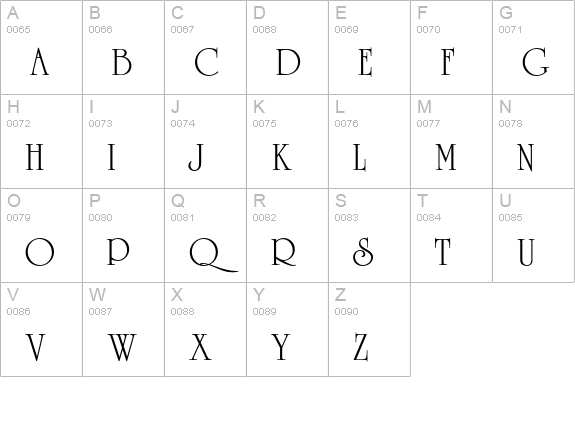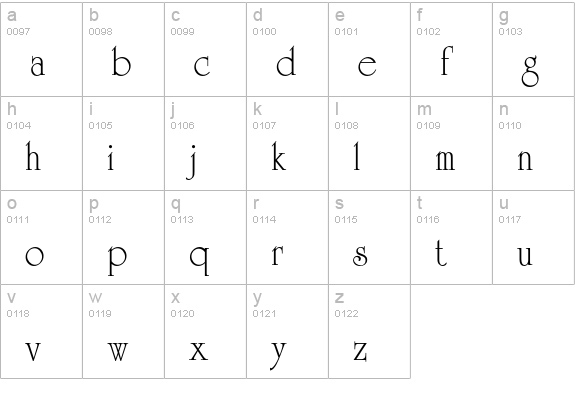
University Roman Font Details
University Roman is a timeless font that exudes elegance and sophistication. With its classic and refined design, this font is perfect for a variety of projects, from formal invitations to professional presentations. Its clean lines and balanced proportions make it highly readable, ensuring that your message is conveyed with clarity and style. One of the best features of University Roman is that it is freely available to download at FontsMarket.com. This means that you can easily access this beautiful font without any cost, making it a valuable resource for designers, students, and anyone in need of a high-quality typeface. Whether you're creating a logo, designing a website, or crafting a printed piece, University Roman will elevate your project to new heights. Its versatility and timeless appeal make it a go-to choice for those seeking a font that is both classic and contemporary. Download University Roman today from FontsMarket.com and discover the endless possibilities it offers for your creative endeavors.